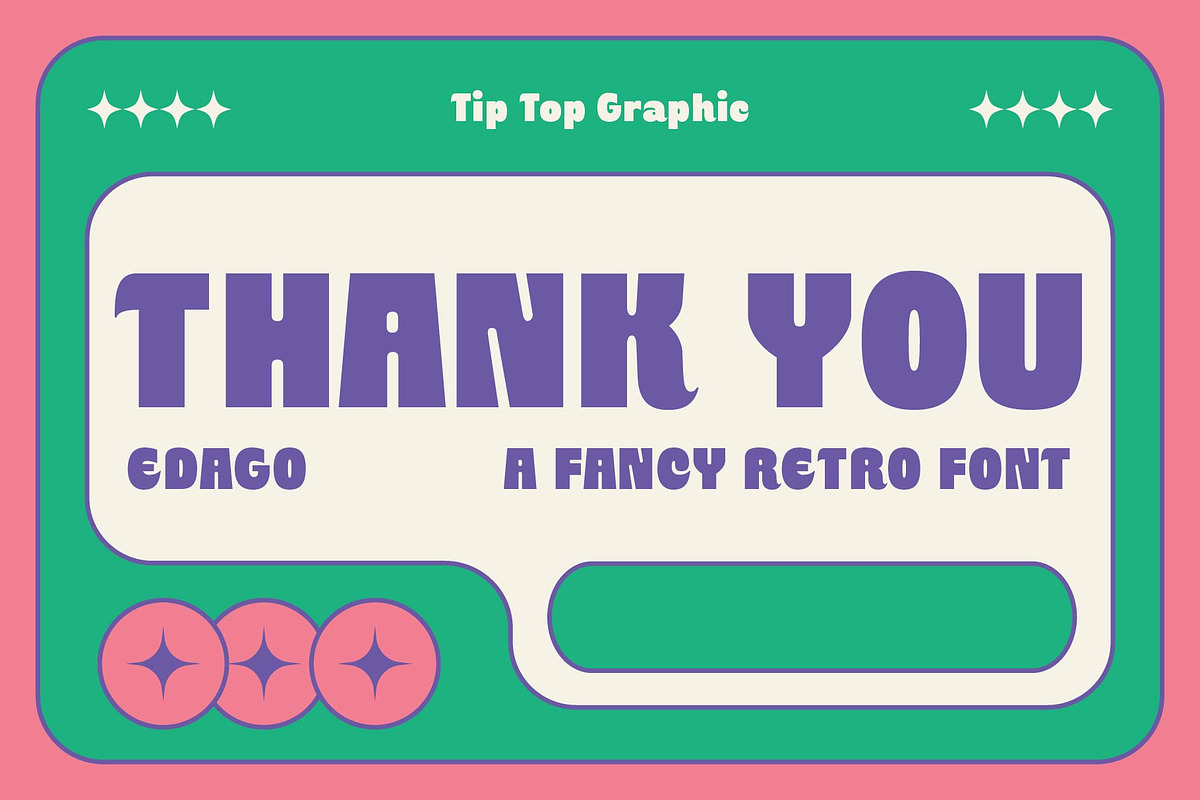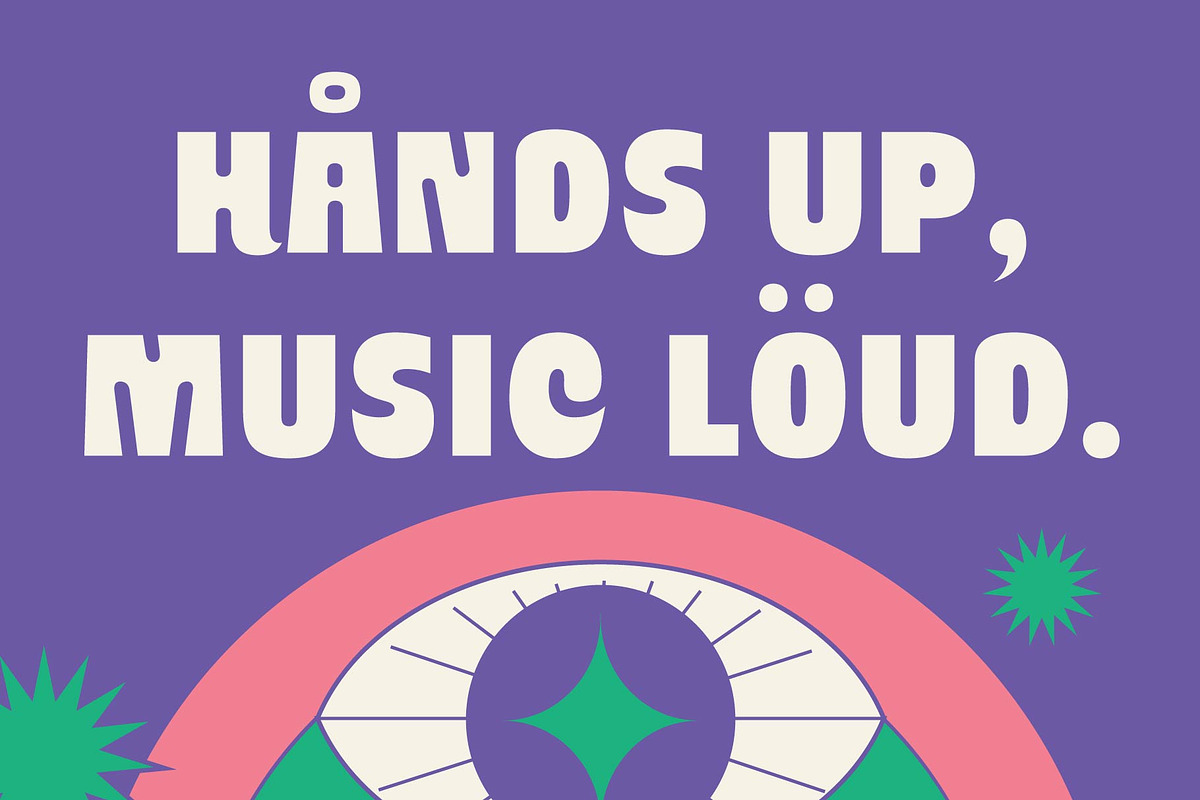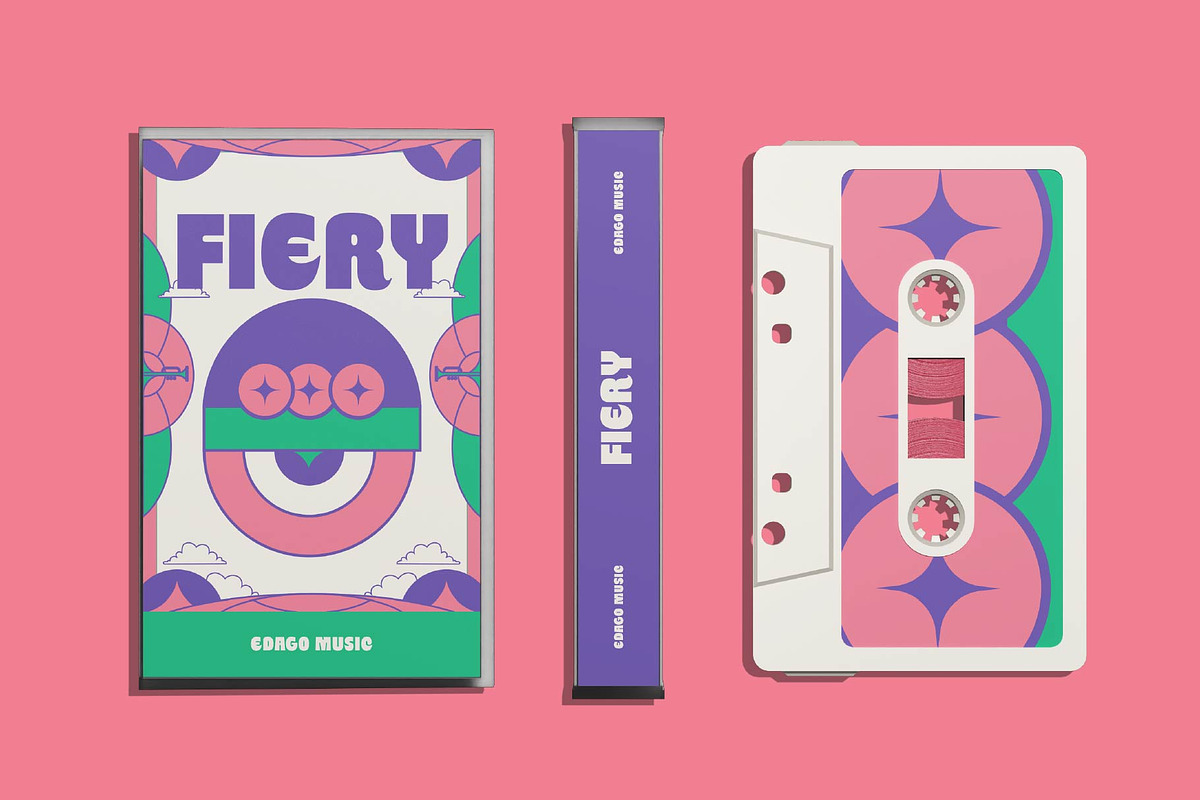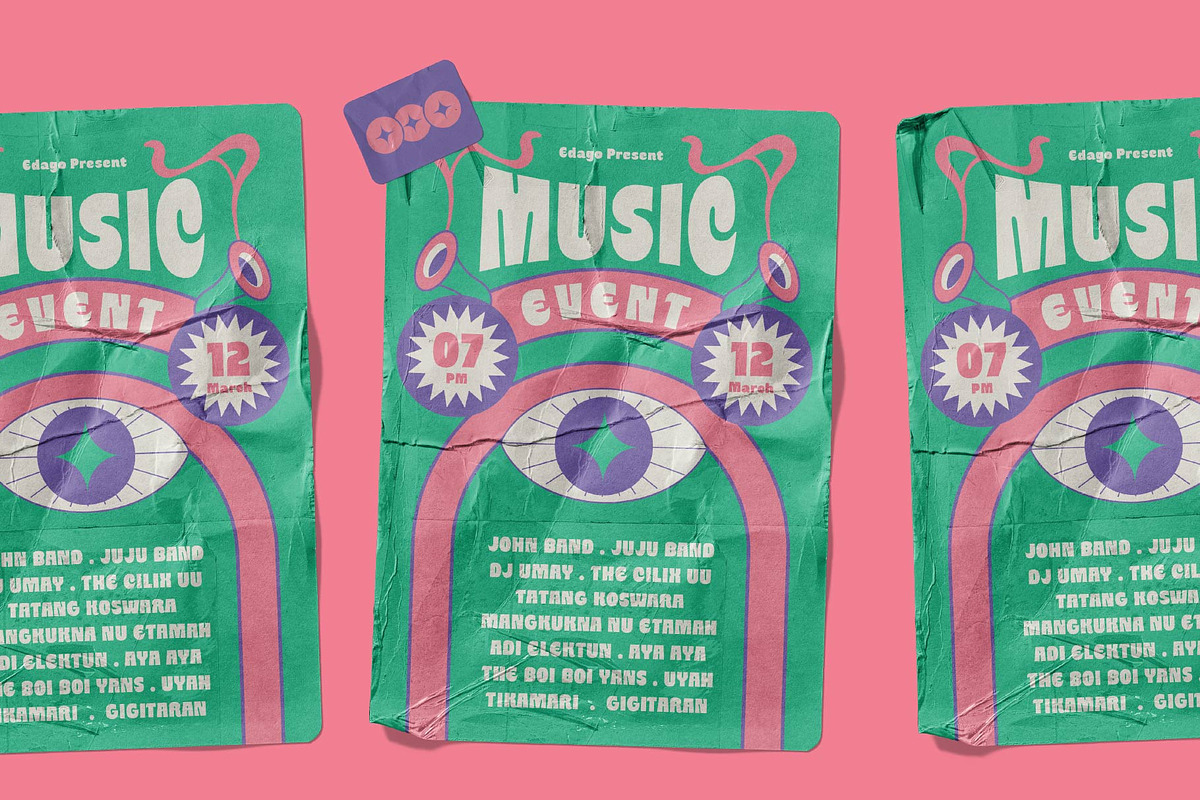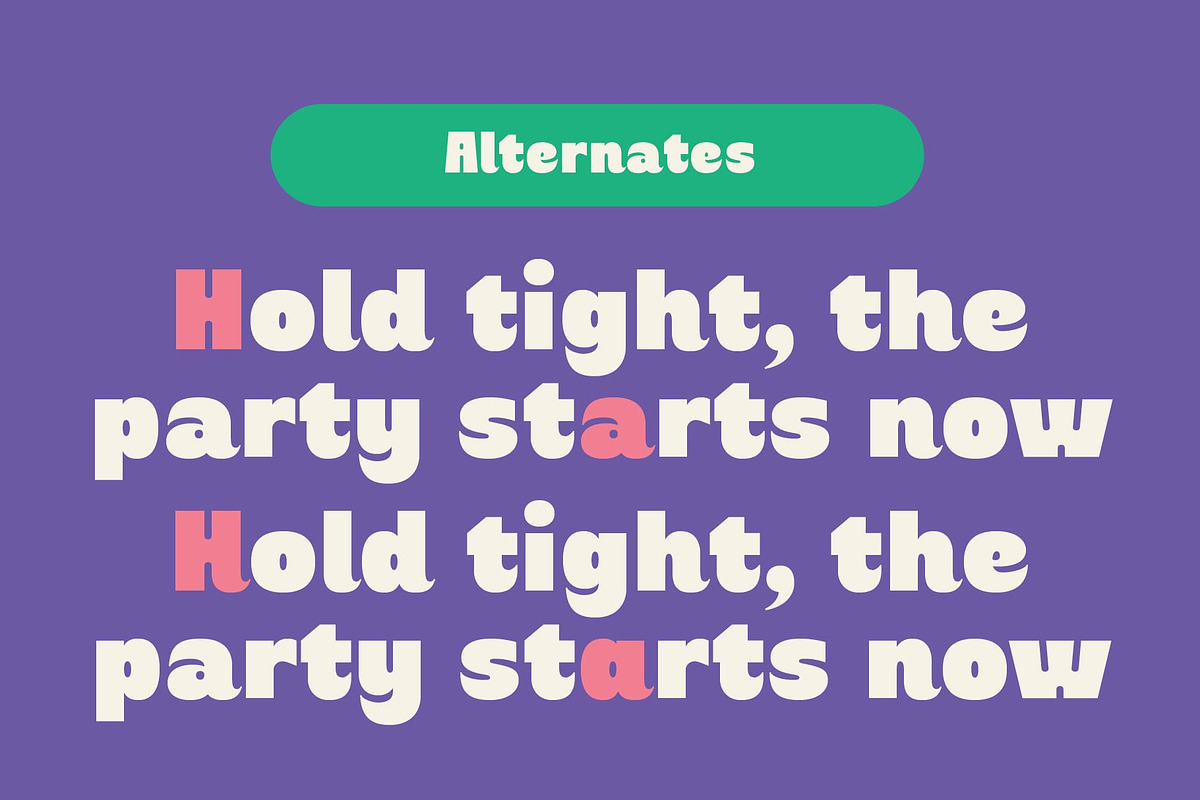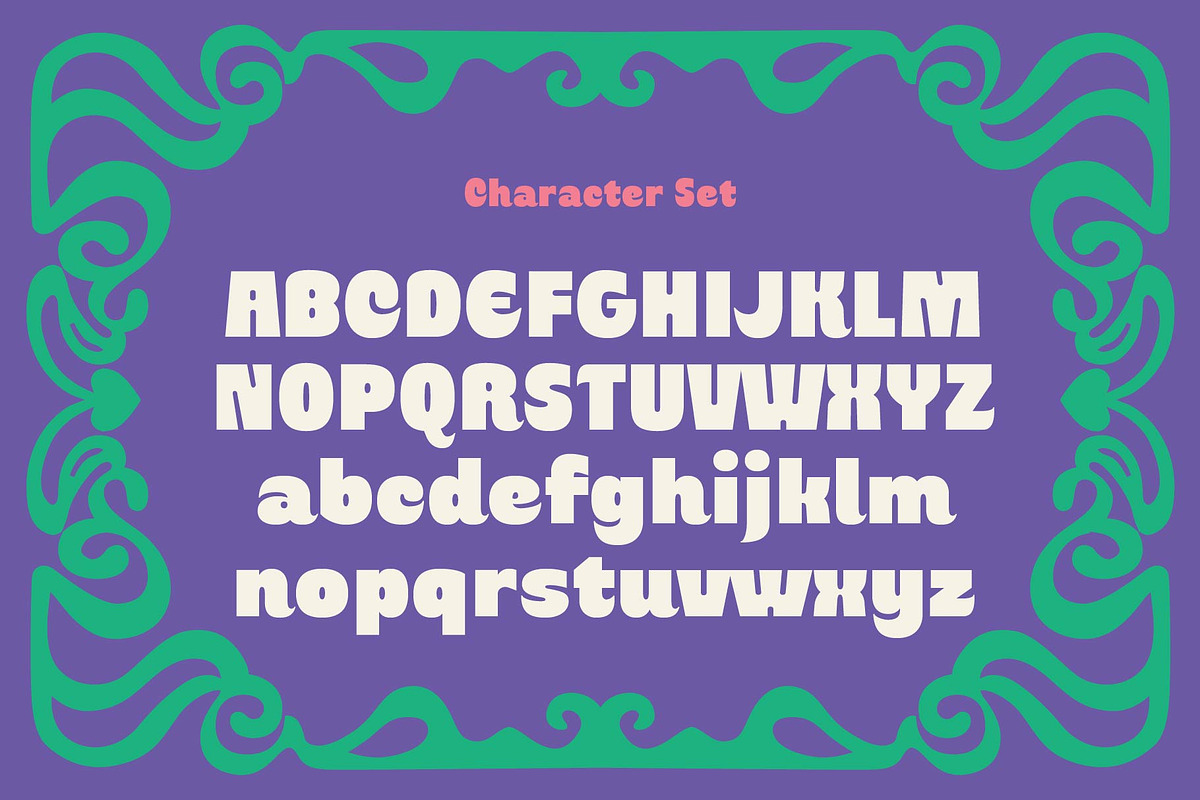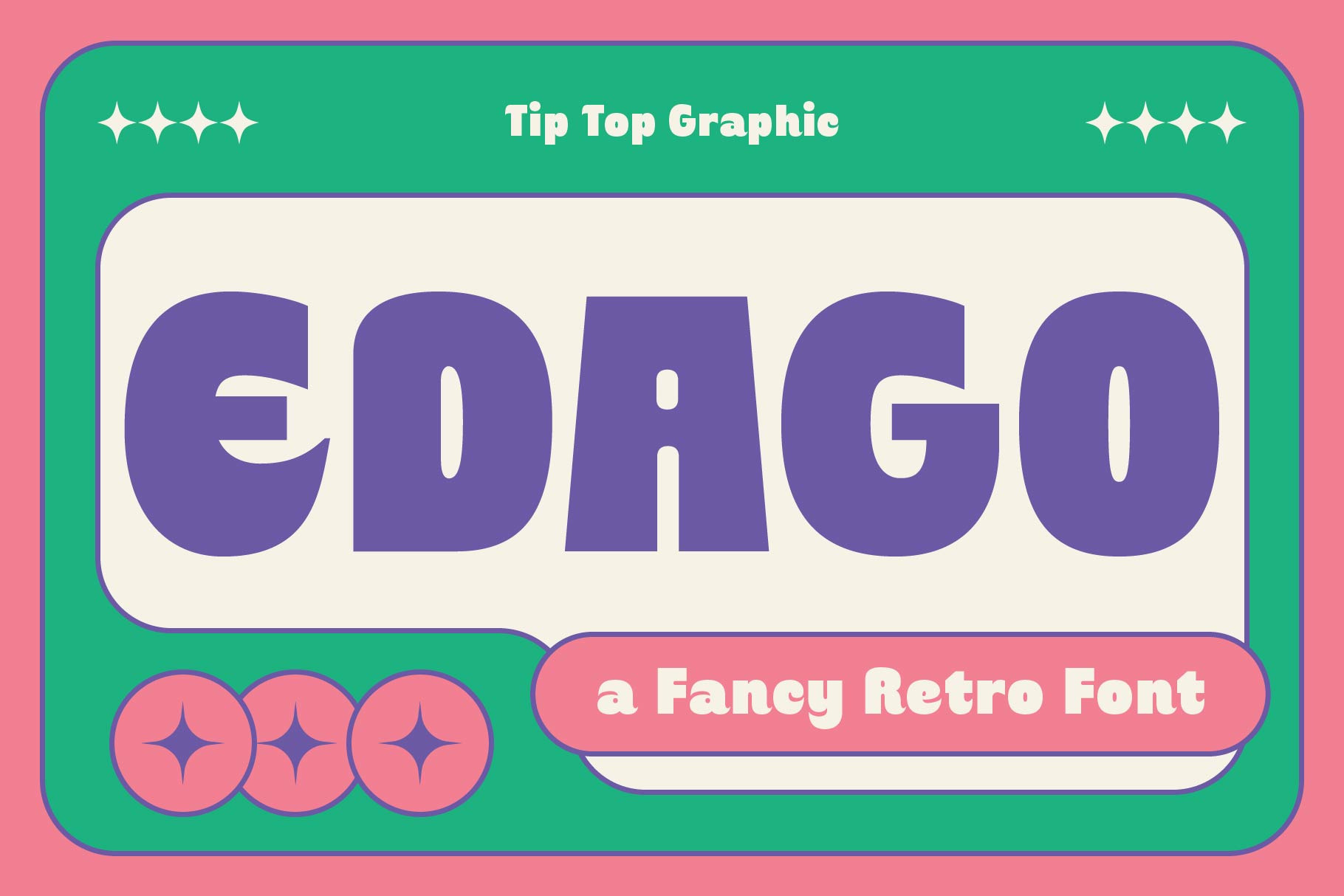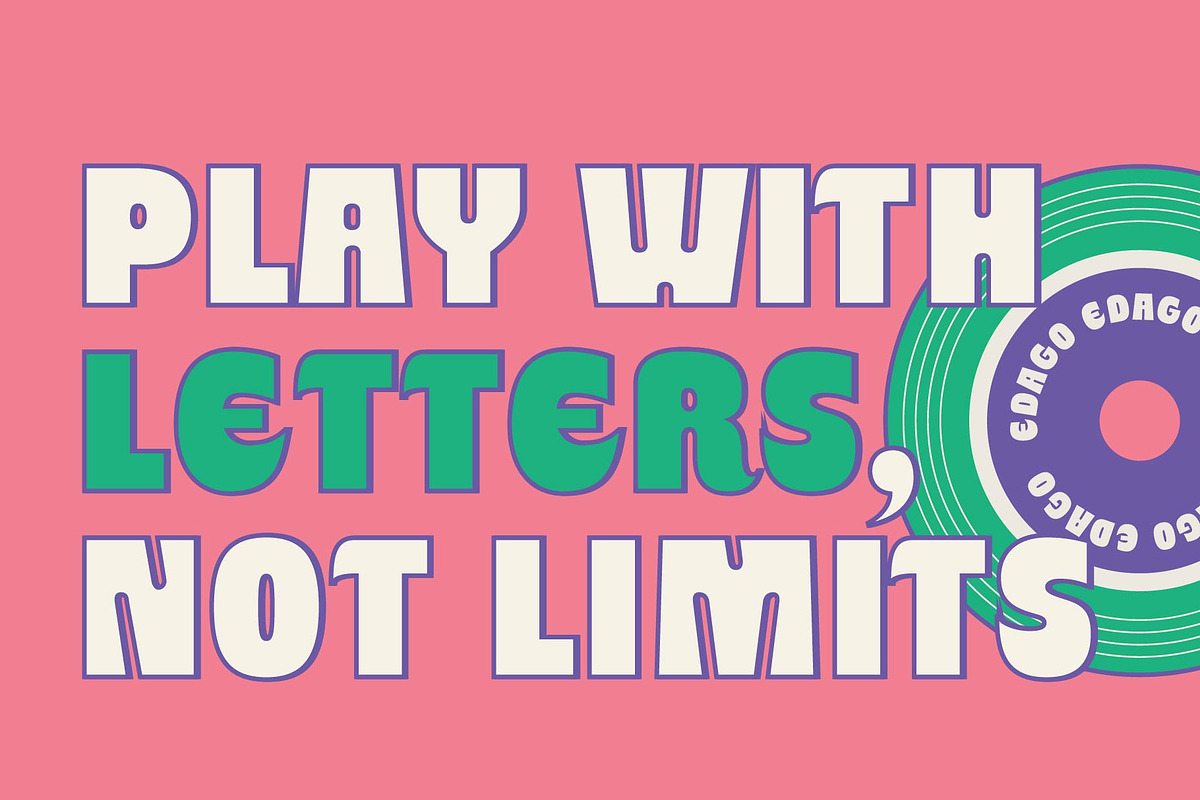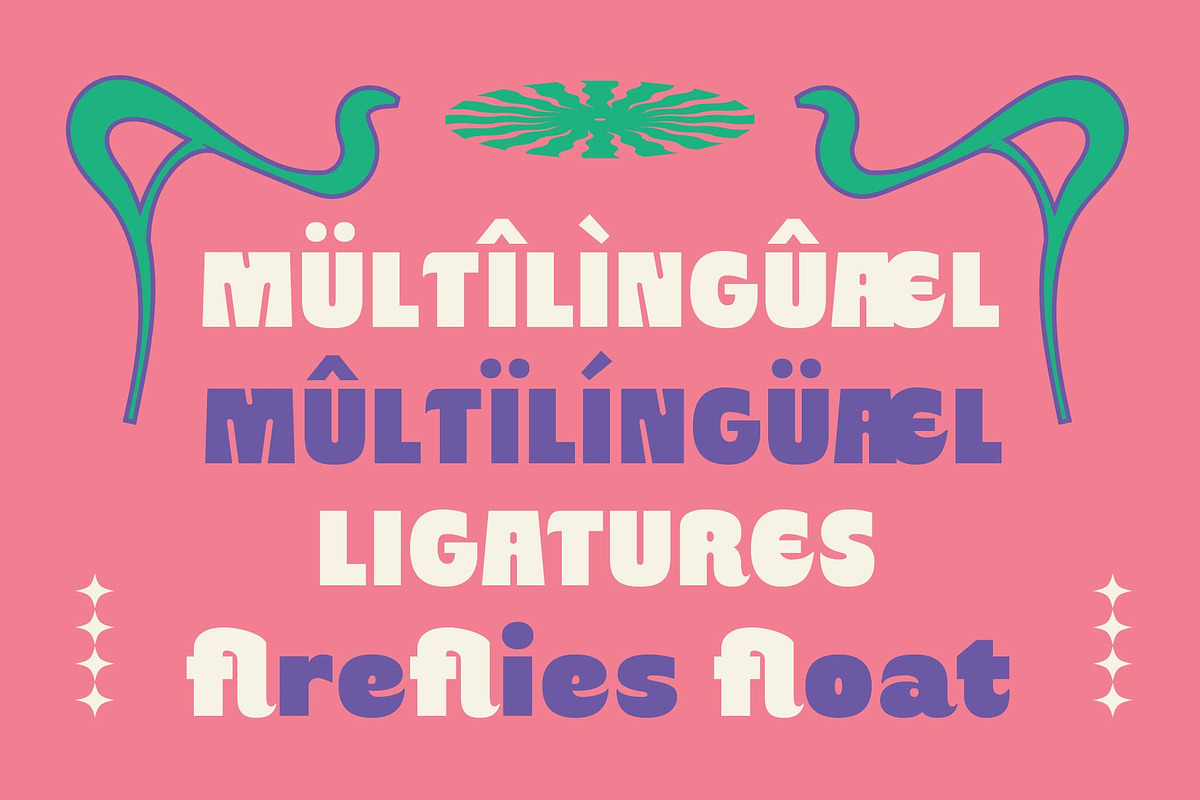
Edago - Fancy Retro Font
Edago is a stylish retro typeface that blends vintage charm with a touch of modern flair. Its bold, curvy letterforms and playful decorative details bring a nostalgic 70s vibe, perfect for projects that need personality and warmth. Whether you’re crafting posters, logos, packaging, or t-shirt designs, Edago adds a groovy, eye-catching aesthetic that stands out beautifully.